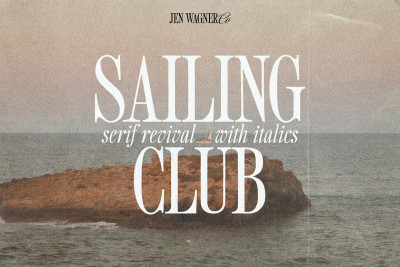
Sailing Club | Nostalgic Serif Font
Sailing Club | Nostalgic Serif combines clean construction with expressive detail, making it a dependable asset in any type toolkit.